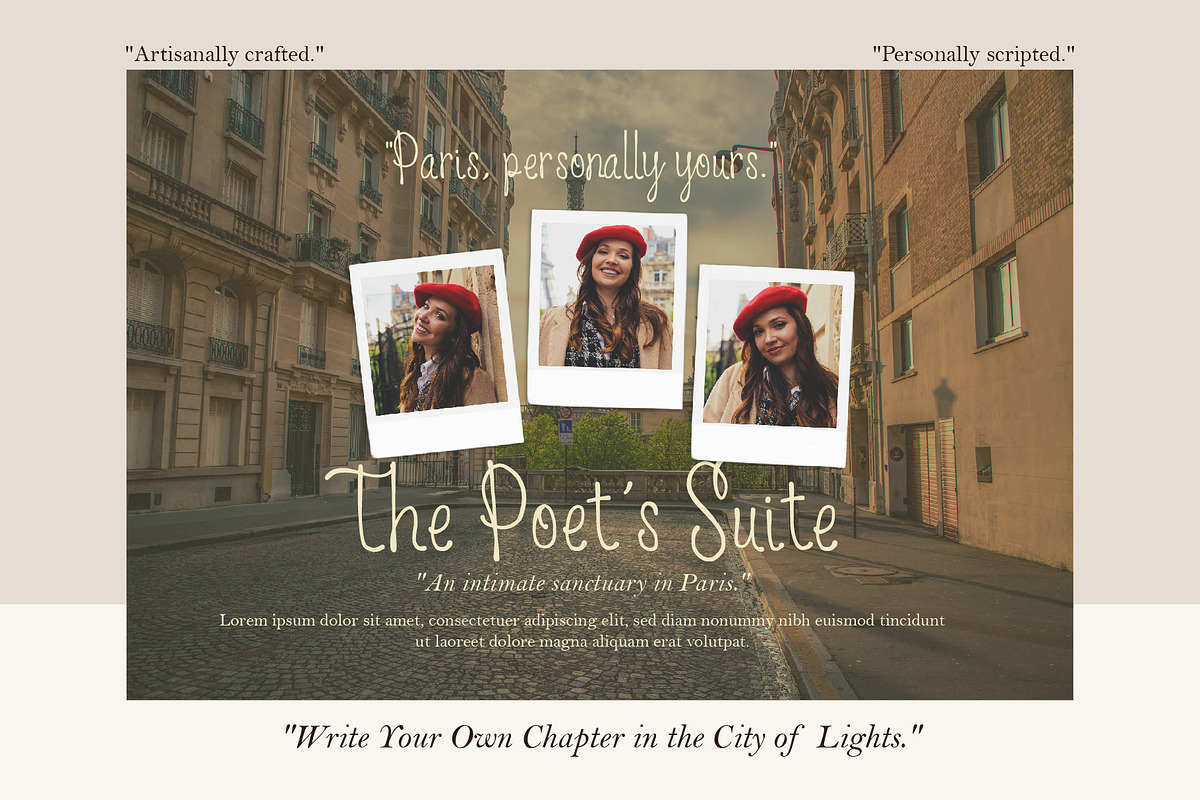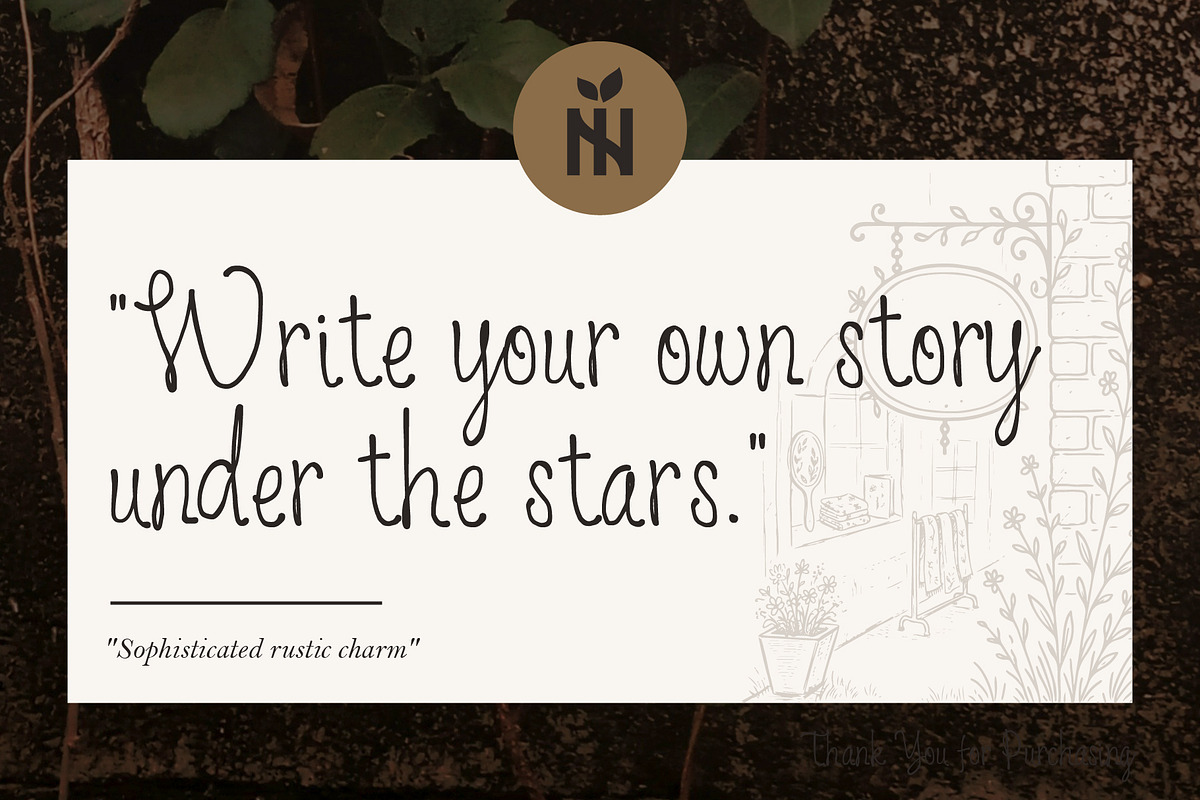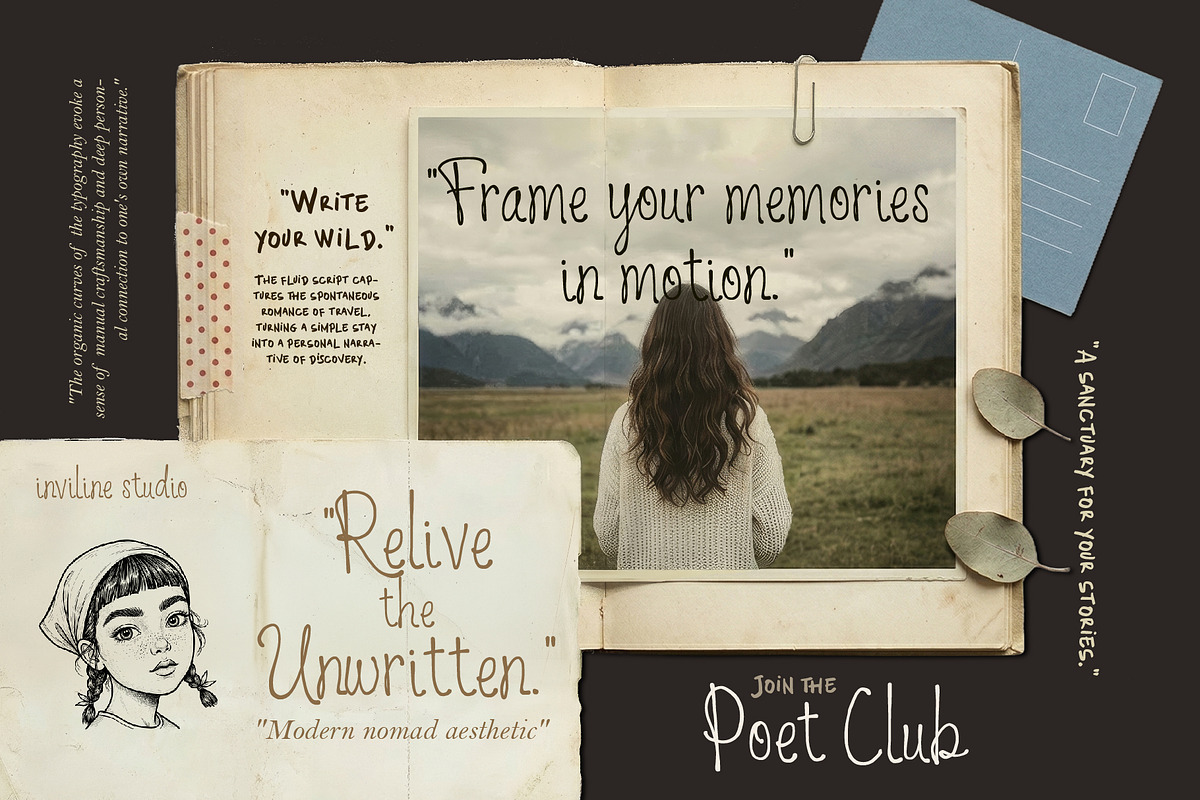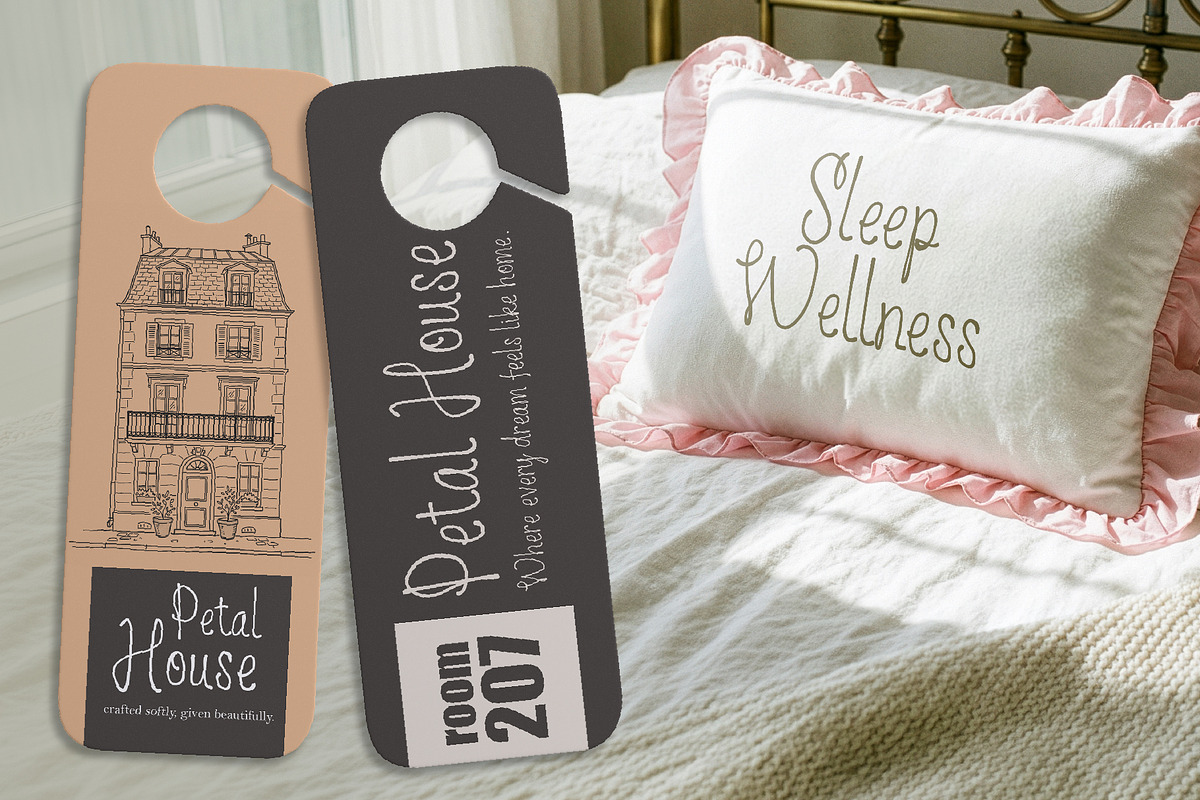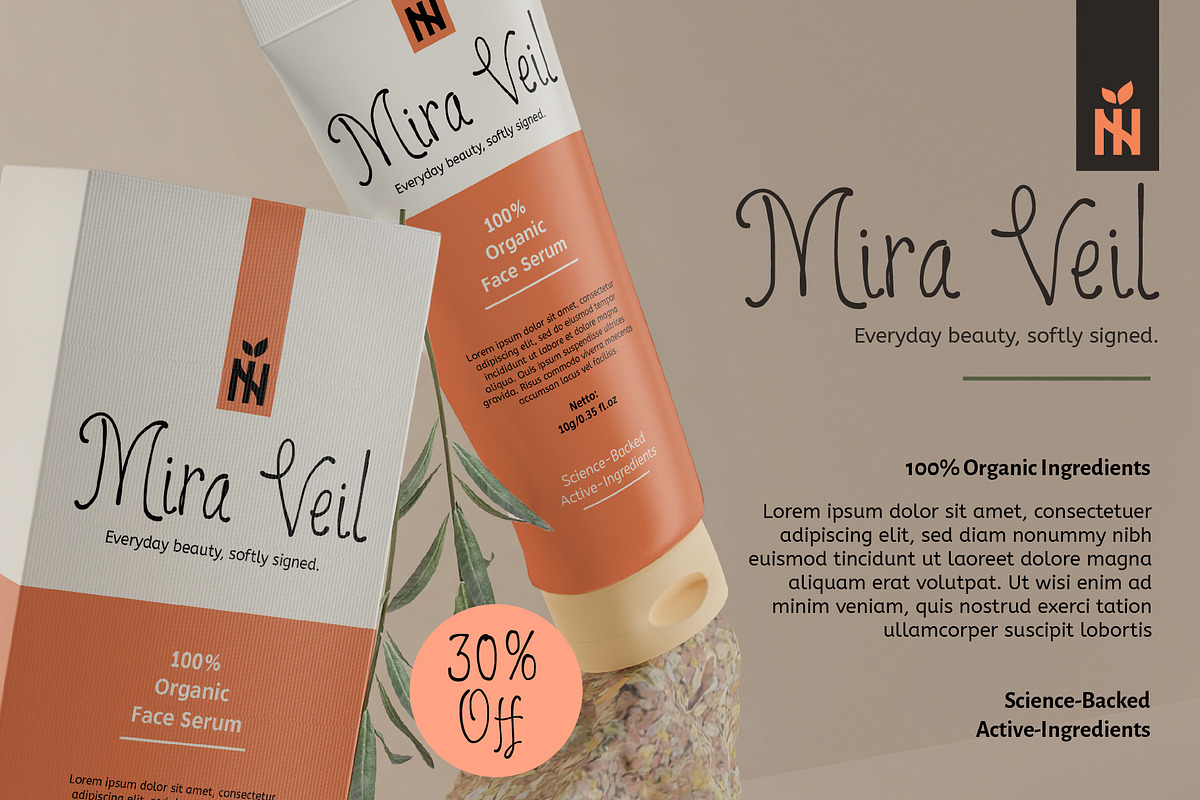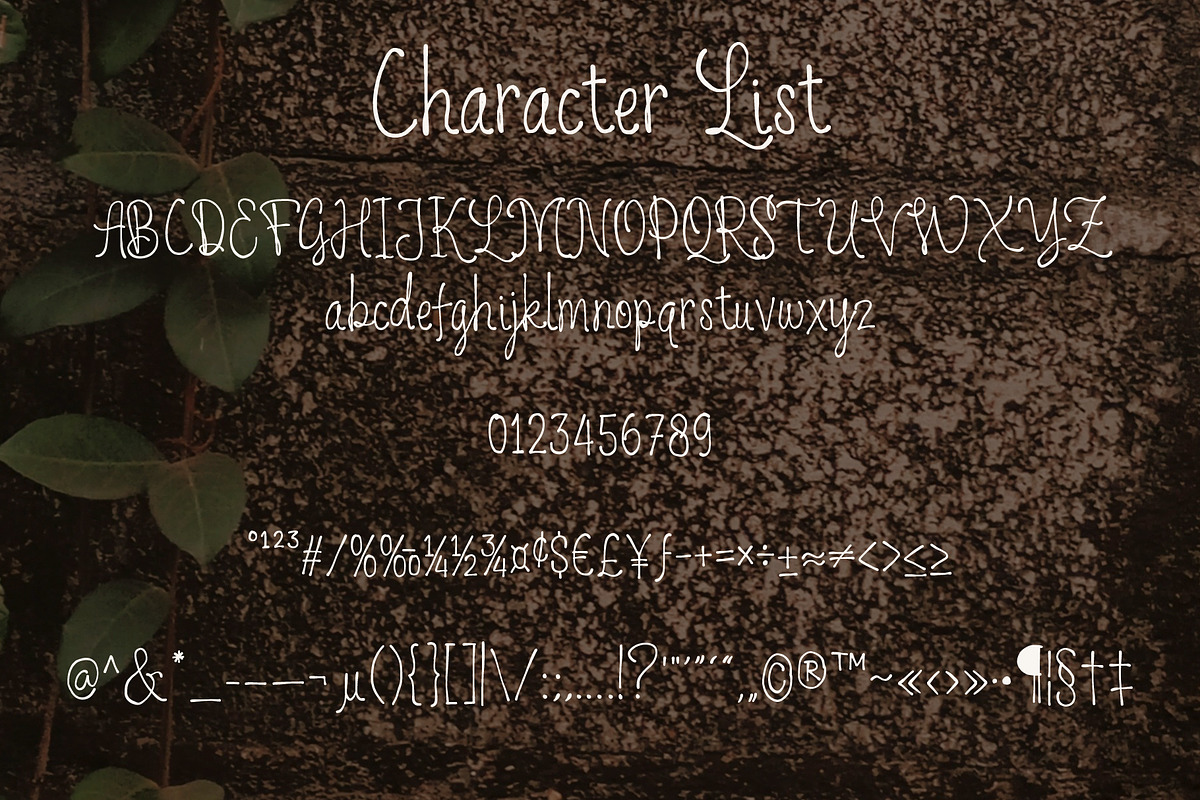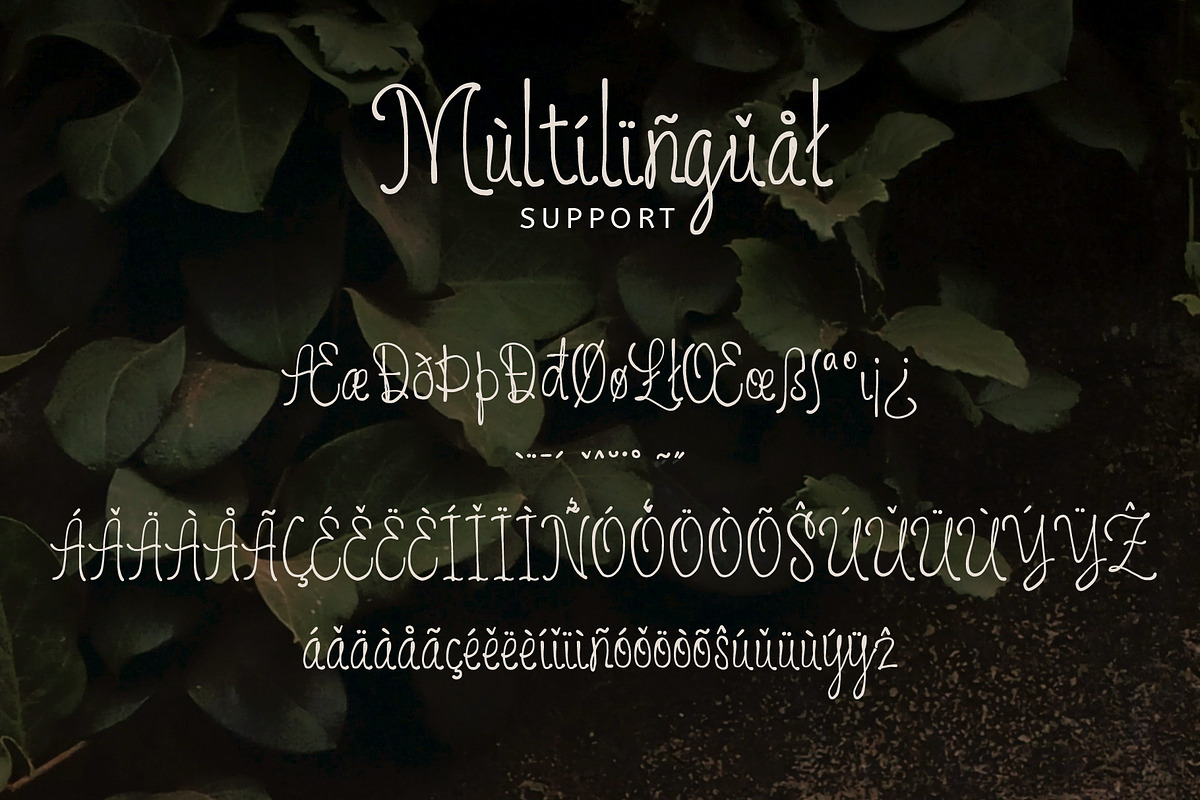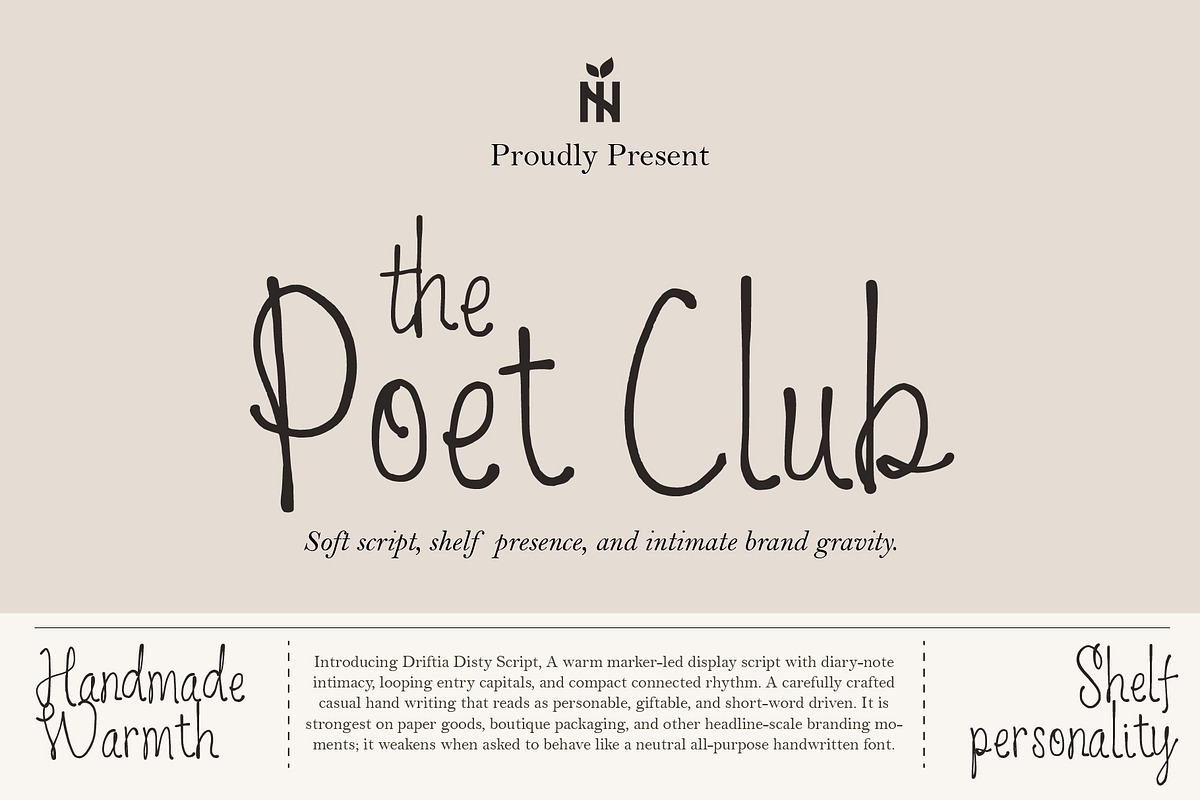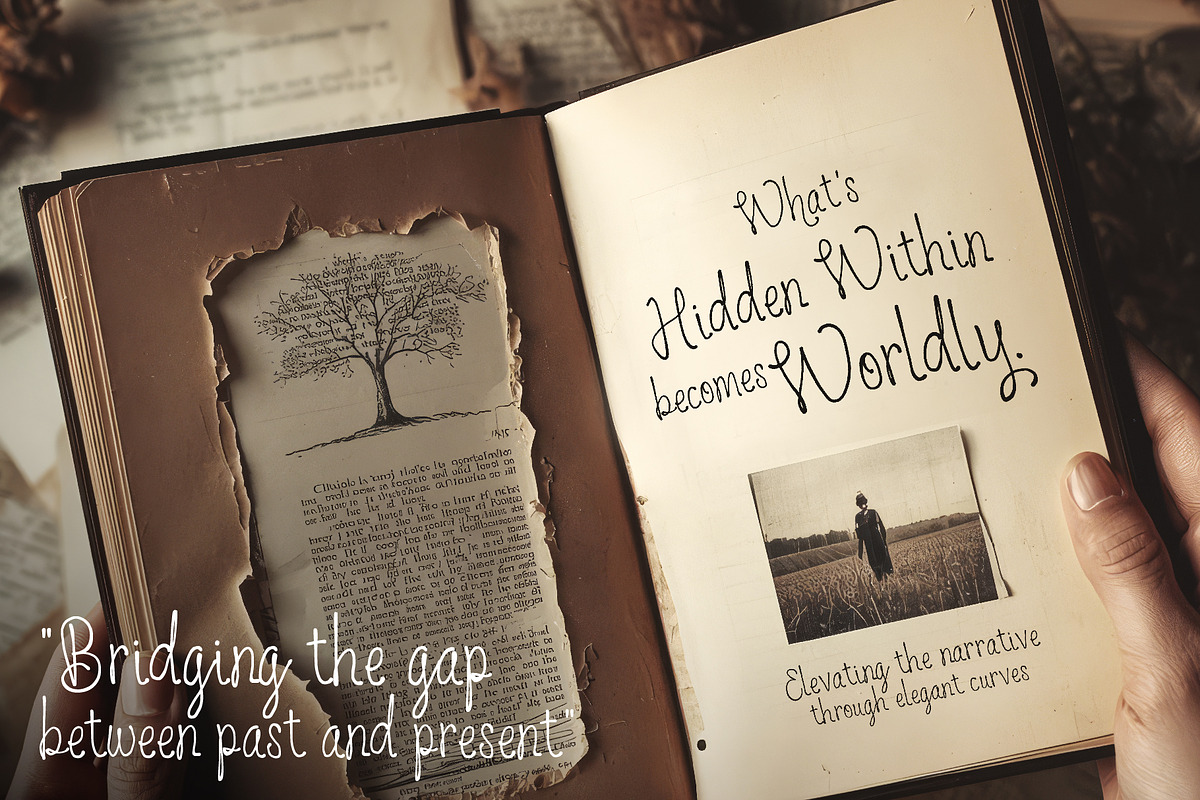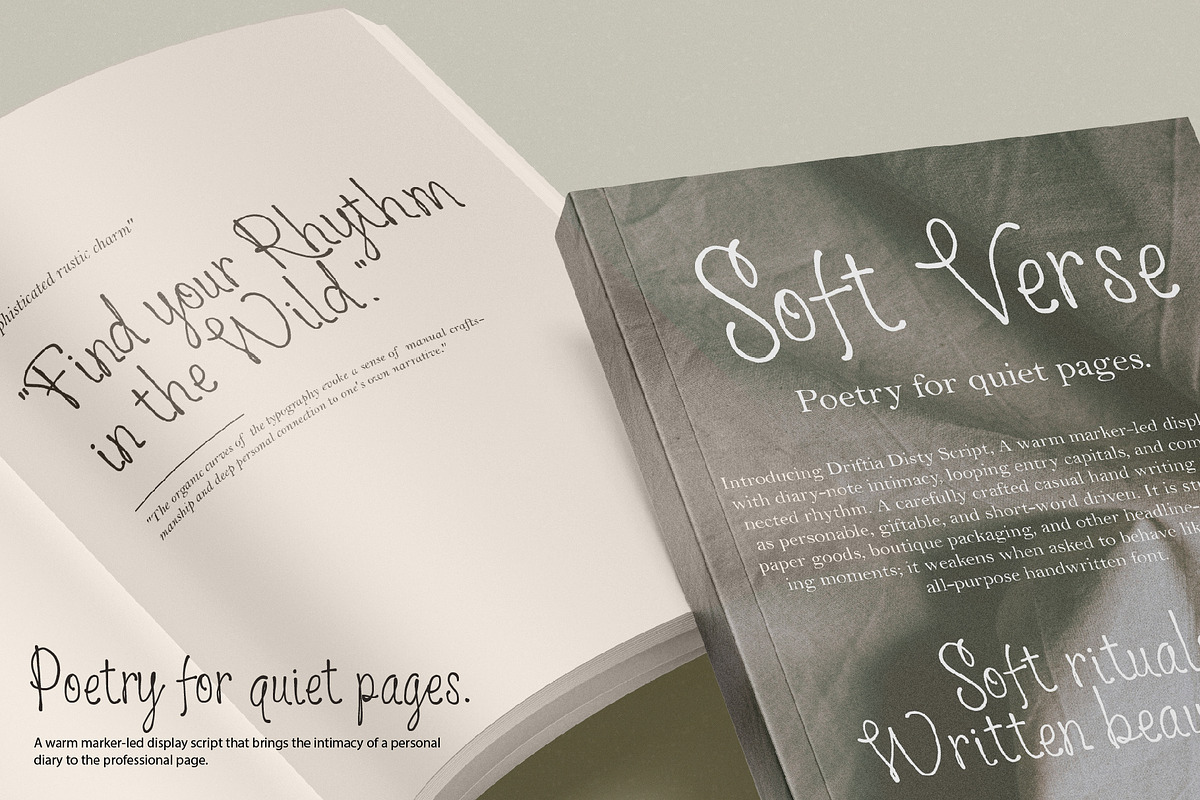
Poet Club - Warm Marker Script
A warm, marker-led display script with diary-note intimacy. Perfect for boutique packaging, travel journals, and soft-luxury branding.
Capture the spontaneous romance of travel and the quiet magic of the handwritten word with Poet Club. Created by Inviline Studio, this warm, marker-led display script is designed to bring "diary-note intimacy" to your professional projects. It trades neutral digital perfection for intimate brand gravity, ensuring your designs have true handmade warmth and shelf personality.
Warm Marker-Led Strokes: Authentic, soft texturing that reads as personable and giftable.
Looping Entry Capitals & Connected Rhythm: Smart OpenType alternates and ligatures that recreate the compact, fluid motion of real handwriting.
Headline-Scale Strength: Specifically crafted to shine on large, short-word driven branding moments.
Boutique Packaging: Organic face serums, artisan teas, and wellness products.
Lifestyle & Travel: "Modern nomad" travel journals, boutique hotel branding (like The Poet's Suite), and photography frames.
Editorial: Poetic quote graphics and sophisticated rustic wedding suites.